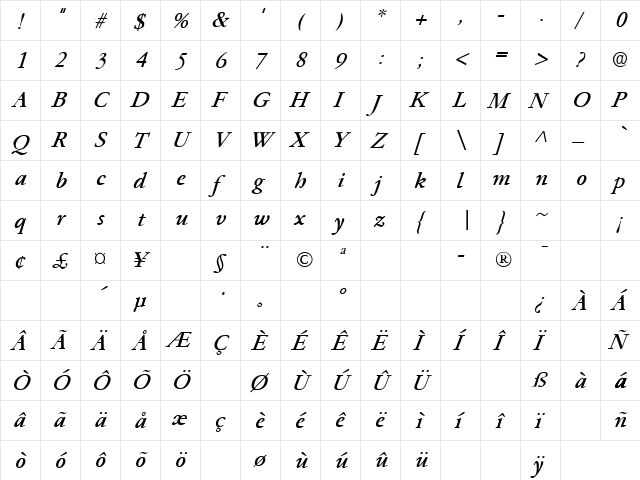
Algonquin Italic Italic
Design Context for Algonquin Italic Typeface
Algonquin Italic takes a measured approach to typography — its balanced proportions and neutral character make it a reliable workhorse for both digital and print work. Its italic angle brings a sense of urgency and motion to the letterforms.
Pro Tip: Use Algonquin Italic for emphasis, pull quotes, and subheadings where its slanted energy can add rhythm to the layout.